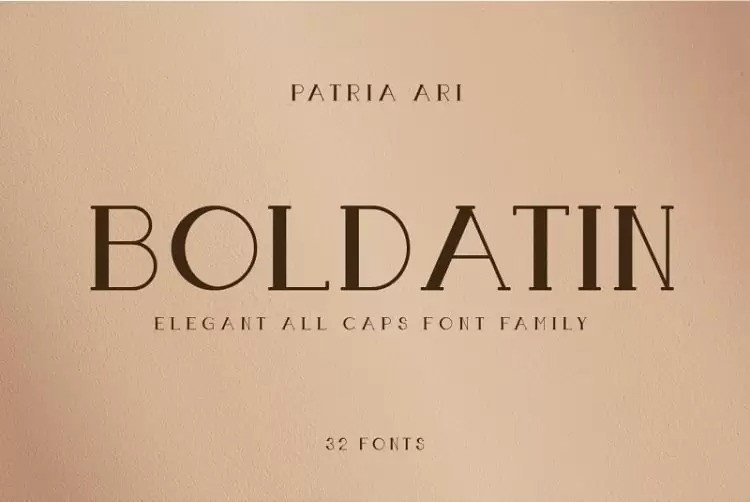
Boldatin Font
Introducing Boldatin Serif Font, a highly versatile font family. Made from font designer named Patria Ari Typestudio. It’s a slab display typeface with different styles (regular, slanted, condensed slanted) with total of 32 fonts and 6 weight that suit for your project like signage, poster, banner, flyer, etc.